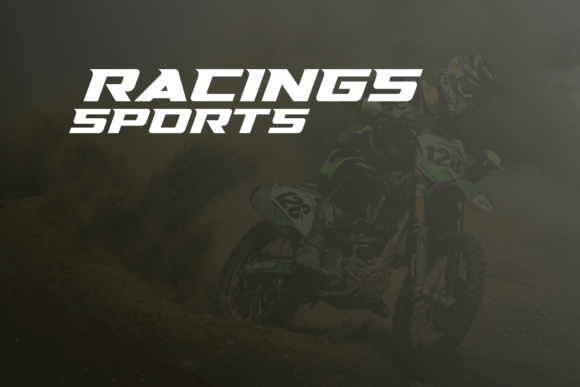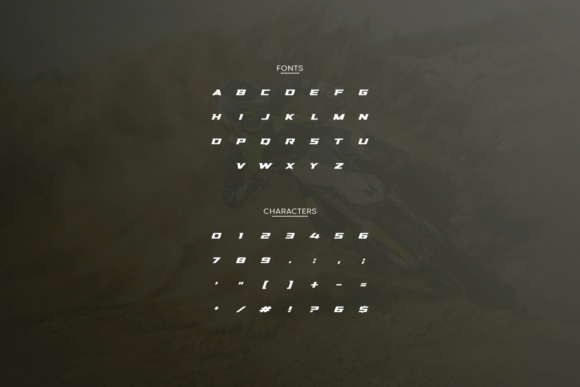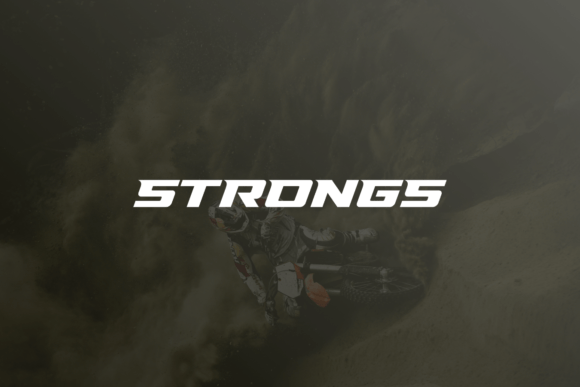
The Perfect Pit Stop for Your Next Design Project
As a designer, there’s nothing quite like the thrill of the creative process – the moment when an idea clicks and everything falls into place. For me, it’s often sparked by a bold, eye-catching font that sets the tone for the entire project. And when it comes to sports-themed designs, there’s one font that’s always a winner: the Croser Font.
With its wide italics, modern cutouts, and dynamic slant, the Croser Font is the perfect choice for fast-paced sports titles, from car racing to cycling. Whether you’re designing a game logo or a monogram, this font adds a touch of speed and energy to any project. For designers, the Croser Font is a valuable tool in the toolbox, offering endless possibilities for creative expression.
Croser Font Key Features
- Unique Characteristics: The font features a unique blend of modern and vintage elements, with a distinctive ‘x-height’ that sets it apart from other sans-serif fonts.
- Kerning and Ligatures: The font includes carefully crafted kerning pairs and ligatures to enhance readability and typographic accuracy.
Croser Font Review
Croser font is a modern sans-serif typeface that caught my eye with its sleek and minimalist design. ✨ One of the things that works well in this font is its legibility, making it perfect for body text and paragraphs. The font is highly readable even at smaller sizes, which is a major plus in today’s digital landscape.
Another feature that I appreciate about Croser font is its versatility. ✨ It comes in a range of weights, from light to bold, allowing designers to choose the perfect version to suit their project’s needs. Additionally, the font’s clean and simple design makes it a great choice for a variety of applications, from digital interfaces to print materials.
Limitsations
- ⚠️ Limited character set: While Croser font offers a range of weights and styles, its character set is somewhat limited compared to other popular fonts.
- ⚠️ Not ideal for headings: While the font is great for body text, it may not be the best choice for headings or titles, as it lacks the necessary flair and visual impact.
Overall, I think Croser font is a solid choice for designers looking for a modern and legible sans-serif typeface. While it has its limitations, its versatility and readability make it a great addition to any design project.
For optimal results, use Croser Font for headings and titles, as it is a bold and elegant font. It pairs well with sans-serif fonts for body text.
Common use cases include:
– Creating a modern and sophisticated logo
– Designing a website or app interface
– Creating a business card or brochure
– Adding a touch of elegance to a presentation or document